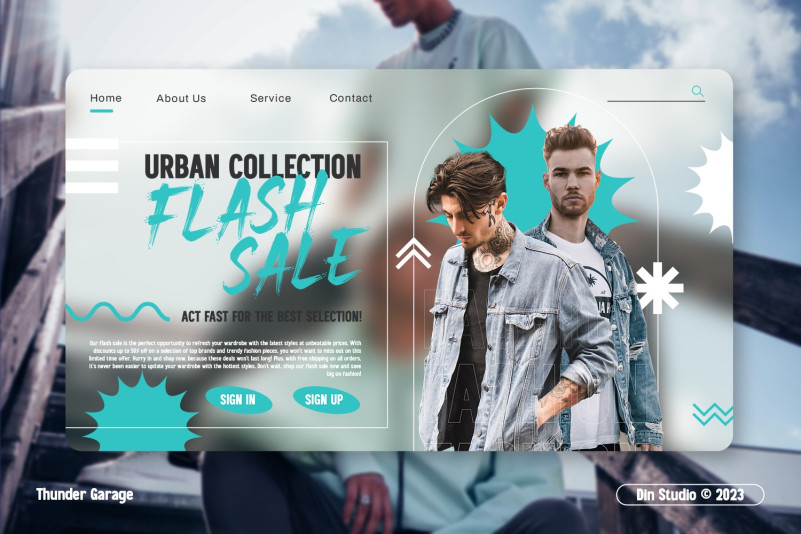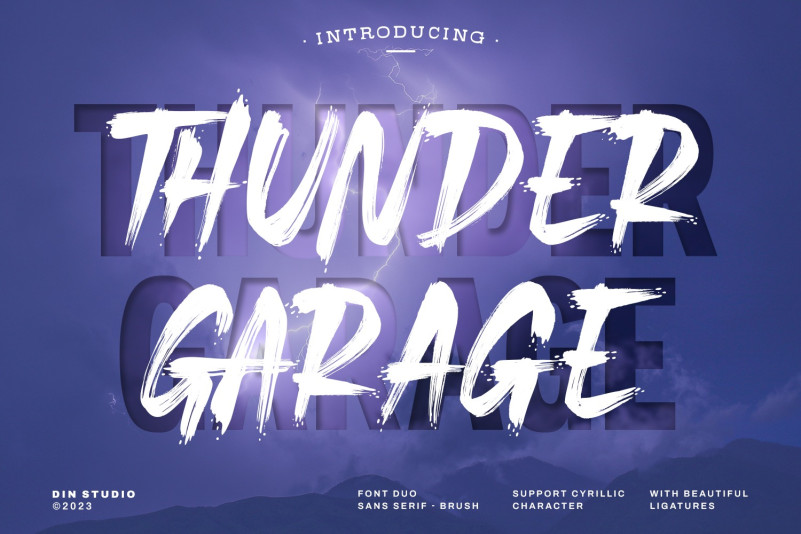
Thunder Garage Font
Thunder Garage Font is a duo font combination between brush and sans serif fonts which you use together in one design. Each font is beautifully created to support one another perfectly. Using a duo font gives interesting contrast and visual variations to your designs. The brush font is made similar to a handwriting style with brush details to show you personal, informal impressions. You are free to use this duo font as either one lovely set or as separated parts based on your needs. In addition, enjoy the other features available in this font.